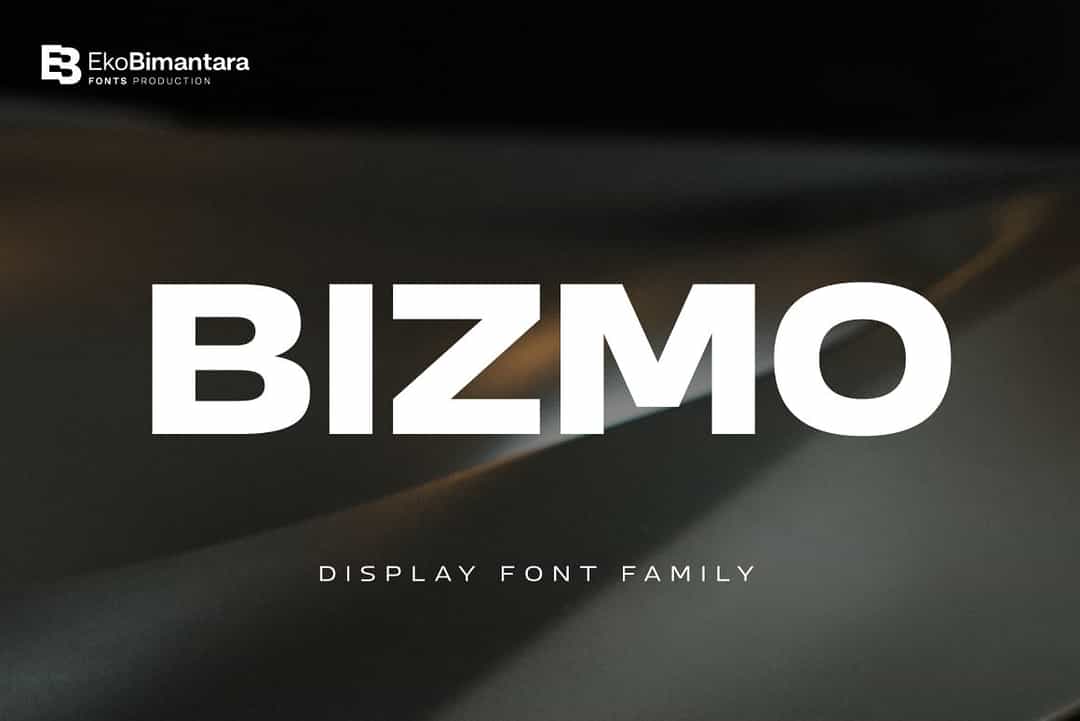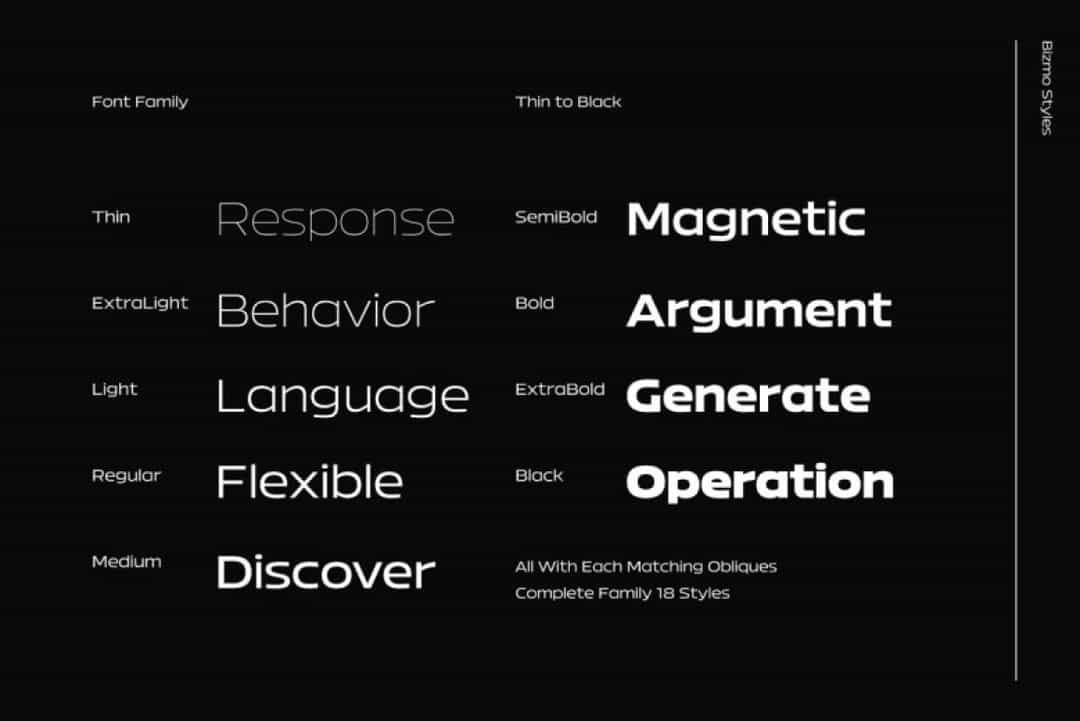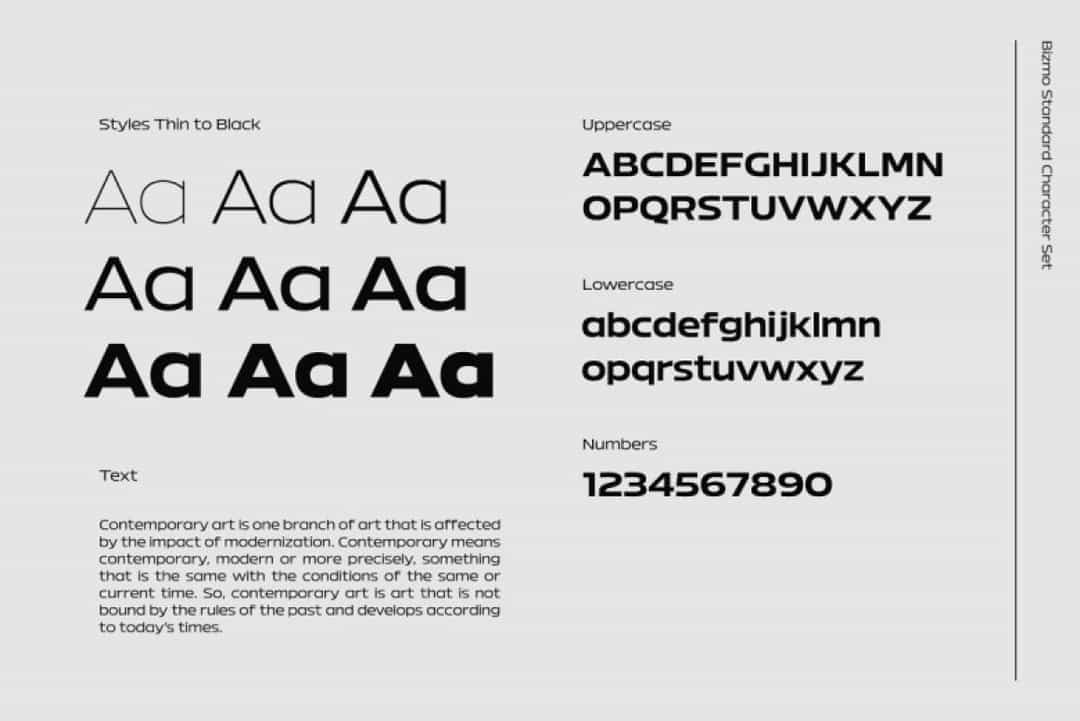
Bizmo font family was designed specifically to be used for display purposes, with its wide letterform making it suitable for large and open spaces. Bizmo includes 9 weights each featuring matching obliques.